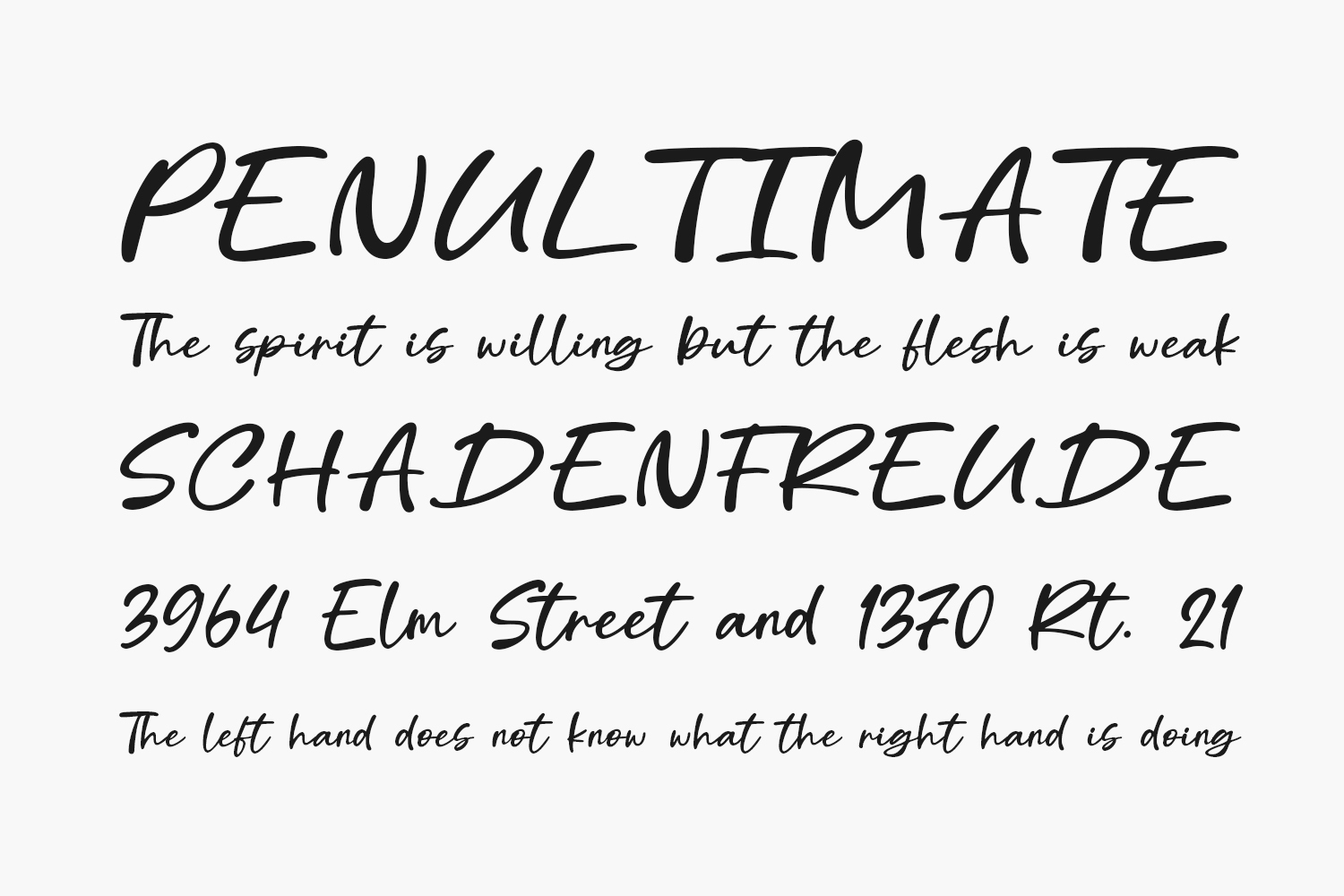
Onbase Free Font is a chic, contemporary, and sophisticated script font that excels in enhancing the aesthetics of posters, logos, magazines, book covers, banners, and beyond. Unlock the potential of this exceptional font to craft exquisite designs that capture attention. Its versatility makes it an ideal choice for a wide spectrum of creative ventures. Infuse it into your imaginative concepts and watch as it elevates them to prominence. Onbase Free Font is free for personal use only. Please purchase the full version for commercial use.